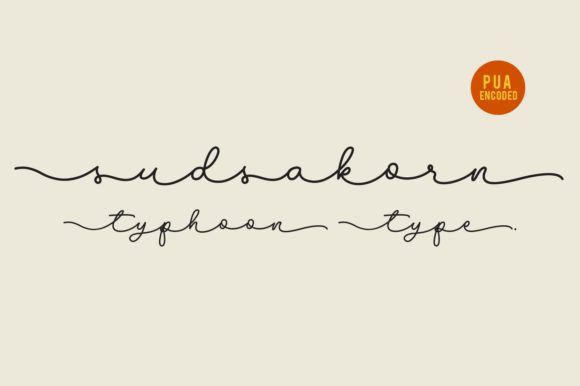
Sudsakorn Font
About Sudsakorn Font
The Sudsakorn is a beautiful calligraphy script. It’s handwritten style makes it perfect for adding a personal touch to every design!
It’s perfect for logos, name tag, advertising, product packaging, clothing, social media & greeting cards.